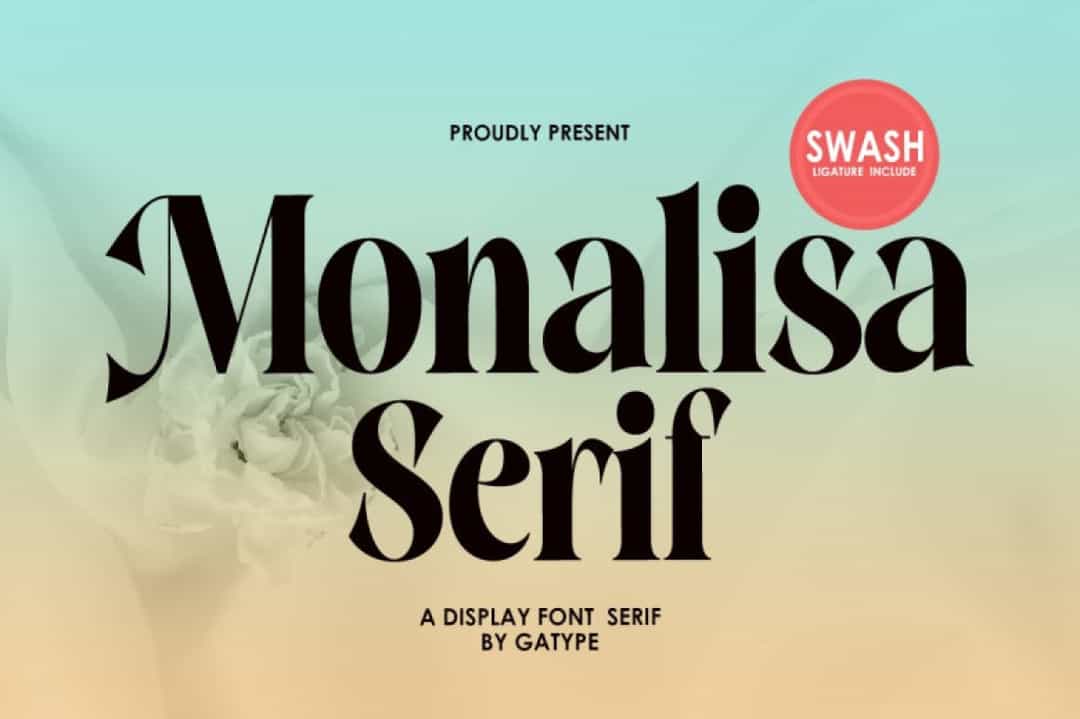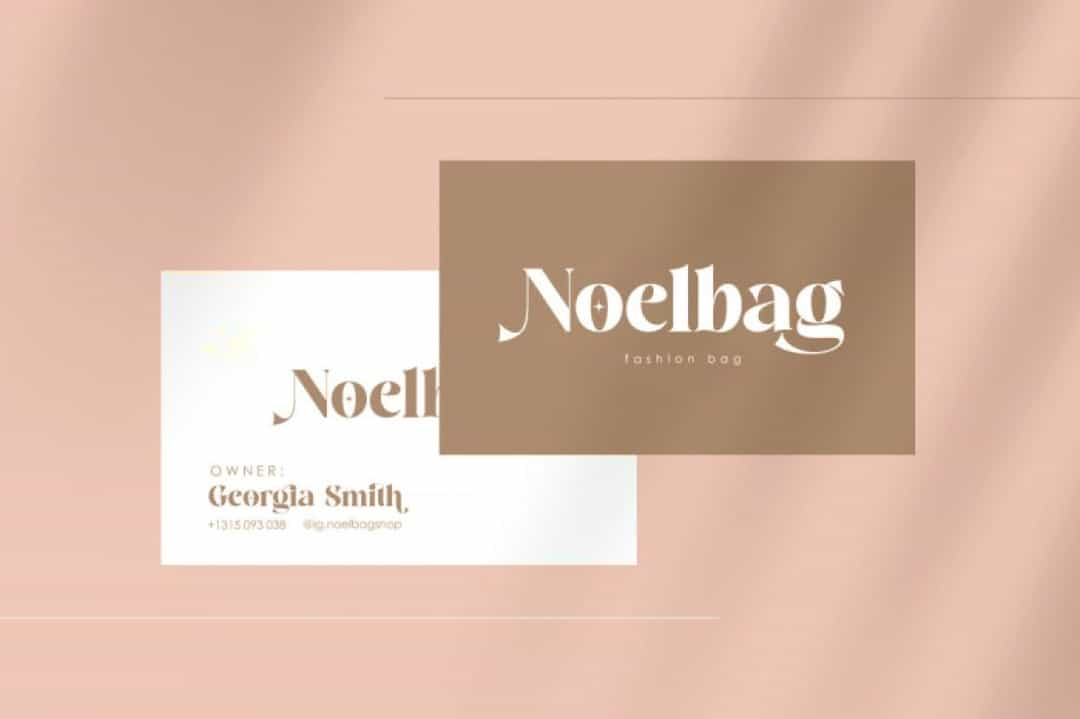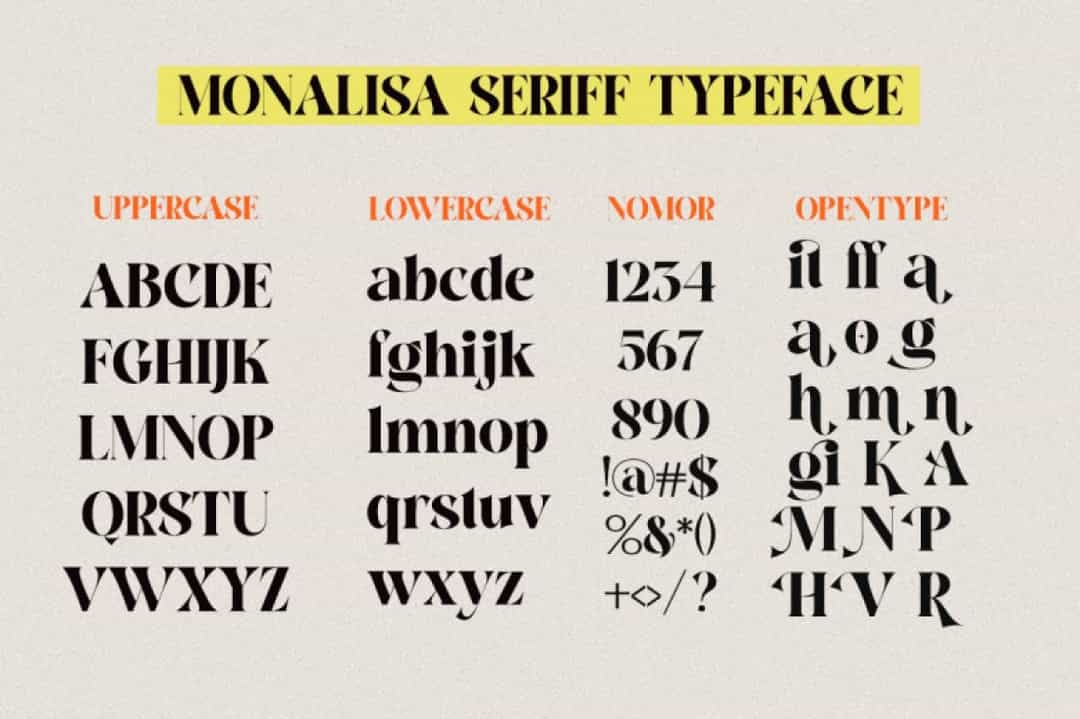
Monalisa Serif Typeface is an elegant serif font with delicate features. Use this elegant font to add fashionable and stylish design appeal to your brand, or as part of branding or logo designs for weddings, clothing stores and other industries. Add ornate options such as ornate lowercase letters for maximum impact!